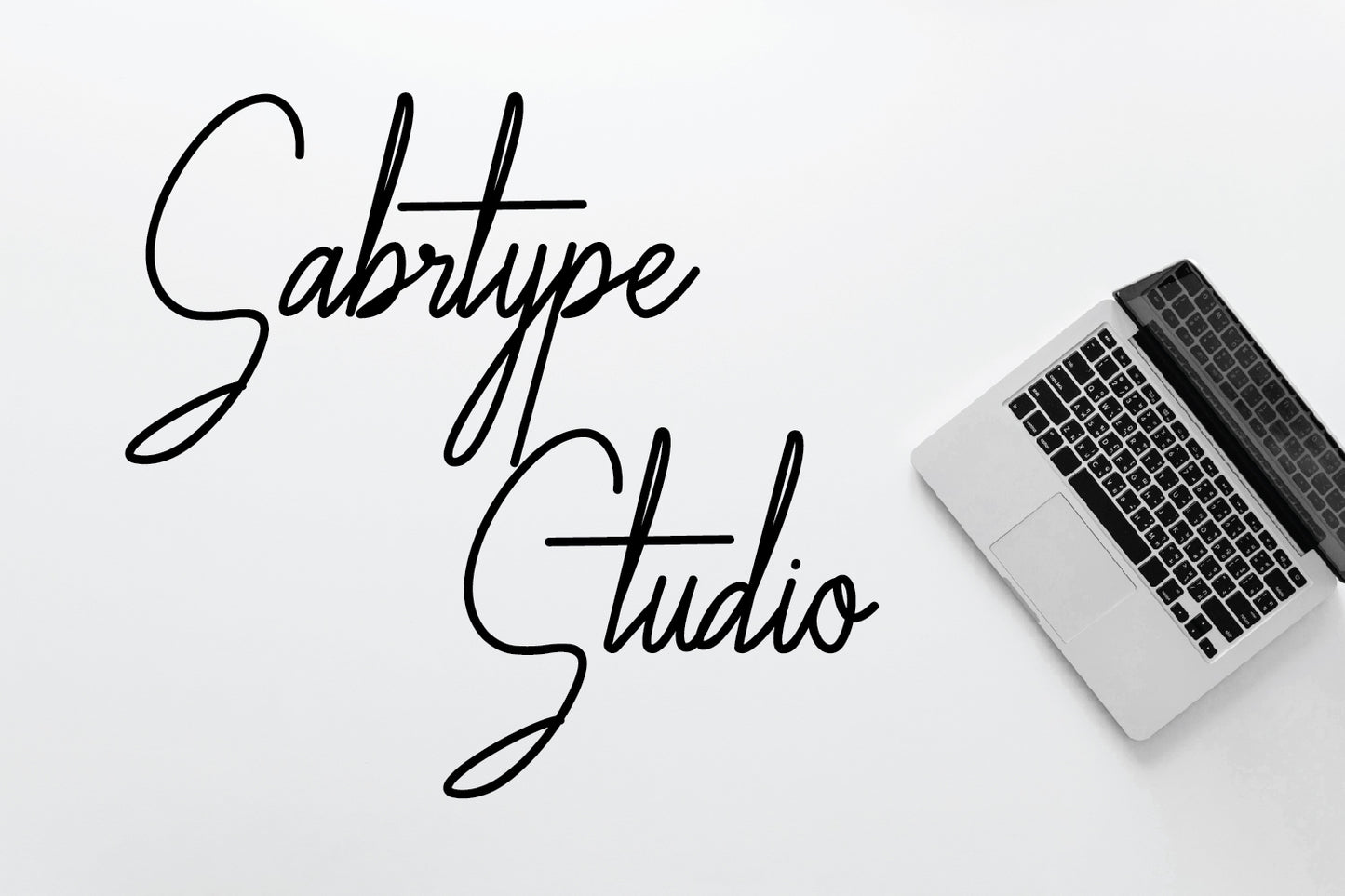
Free Galliyani Handwritten Font Style
Featuring the awesome free galliyani handwritten font style. Download this free font from the original source of Pixelify. This is absolutely fancy font so you can easily make world-class designs.